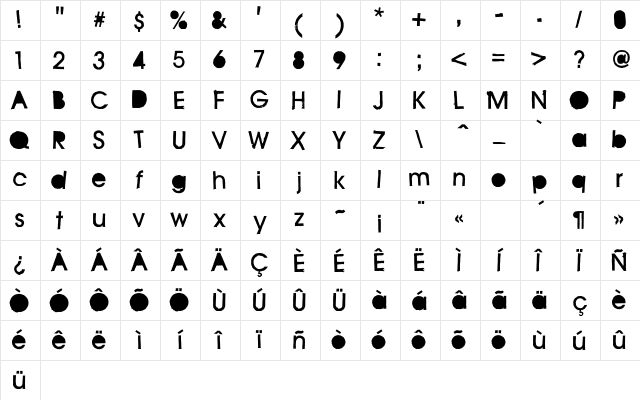
Complete FD Stenciluxe Regular glyph index. Displaying only characters natively supported by FD Stenciluxe Regular font.
FD Stenciluxe borrows the utilitarian aesthetic of stencil lettering, with its characteristic cutaways and no-frills construction lending an industrial edge.
Pro Tip: Use FD Stenciluxe at large sizes on packaging, posters, or apparel where the stencil cutaways read clearly. Avoid small sizes where those gaps become visual noise.